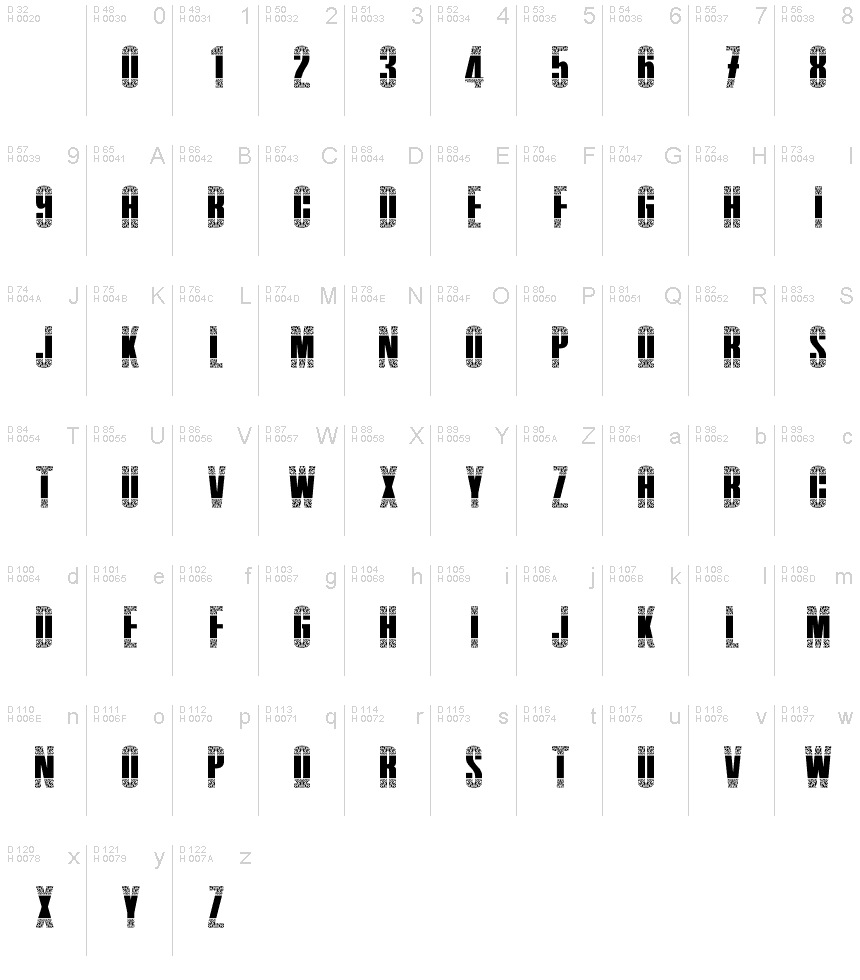
Leaf
Leaf, the captivating creation of scratchones, is a bold and decorative display font that exudes uniqueness and charm. With its striking design and extra-condensed width, Leaf is perfect for a wide range of creative projects. Use this font to add a touch of elegance to your logo designs, create eye-catching headlines for magazines or posters, or bring life to your social media graphics. Whether you're working on branding projects, packaging designs, or even wedding invitations, Leaf will infuse your creations with an irresistible allure that captivates any audience.